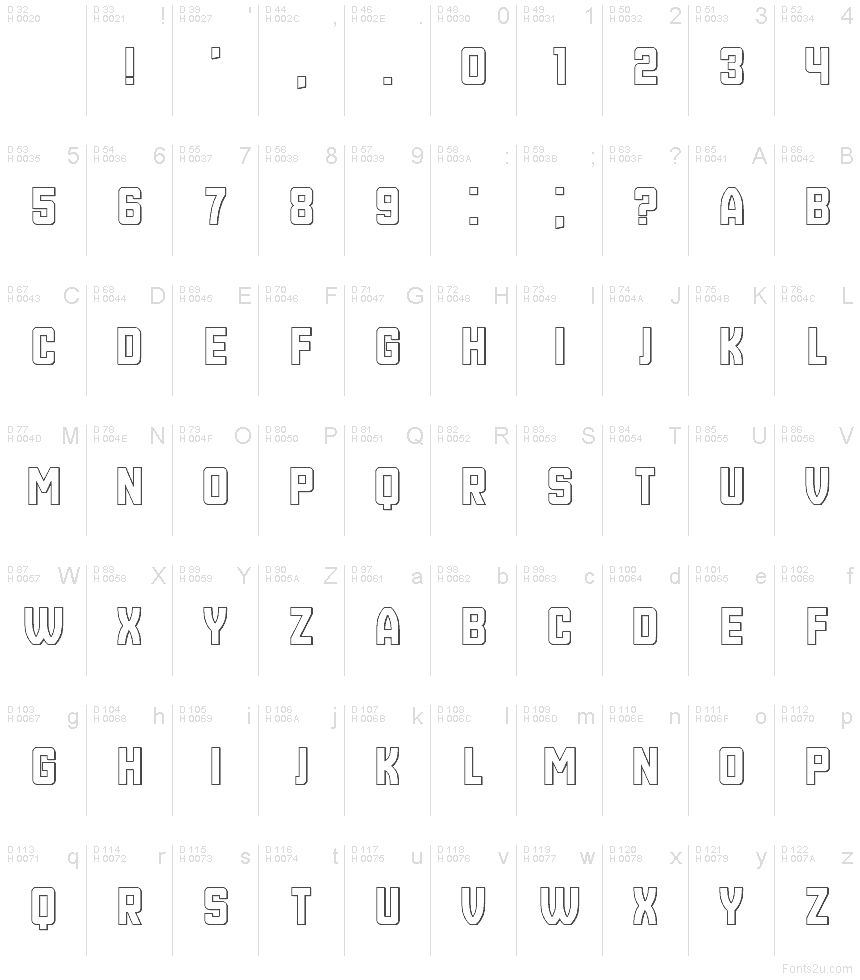
Carisbrooke Extravagant Regular
Carisbrooke Extravagant font by Vladimir Nikolic is a geometric display typeface with well-sculpted characters and intriguing edges. Its industrial charm is undeniable, giving it a futuristic technical appearance that would be perfect for multiple of your designs. Moreover, the font comes in 5 formats: bold, extravagnat, light condensed, standard regular, and light.
Mainly used in large size contexts such as posters and billboards, this free geometric font can also enrich websites’ user interfaces and other digital media. It can be part of your infographics where important data fills the screen along with magazine covers to attract attention.